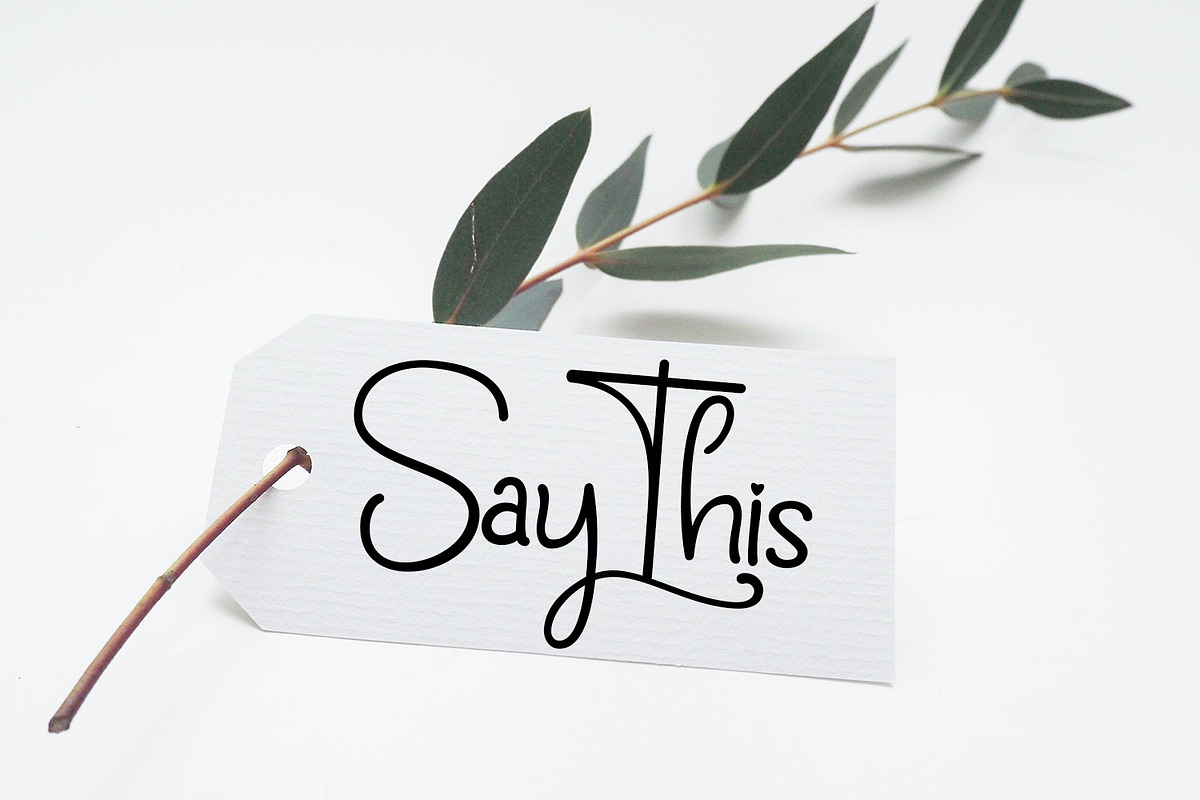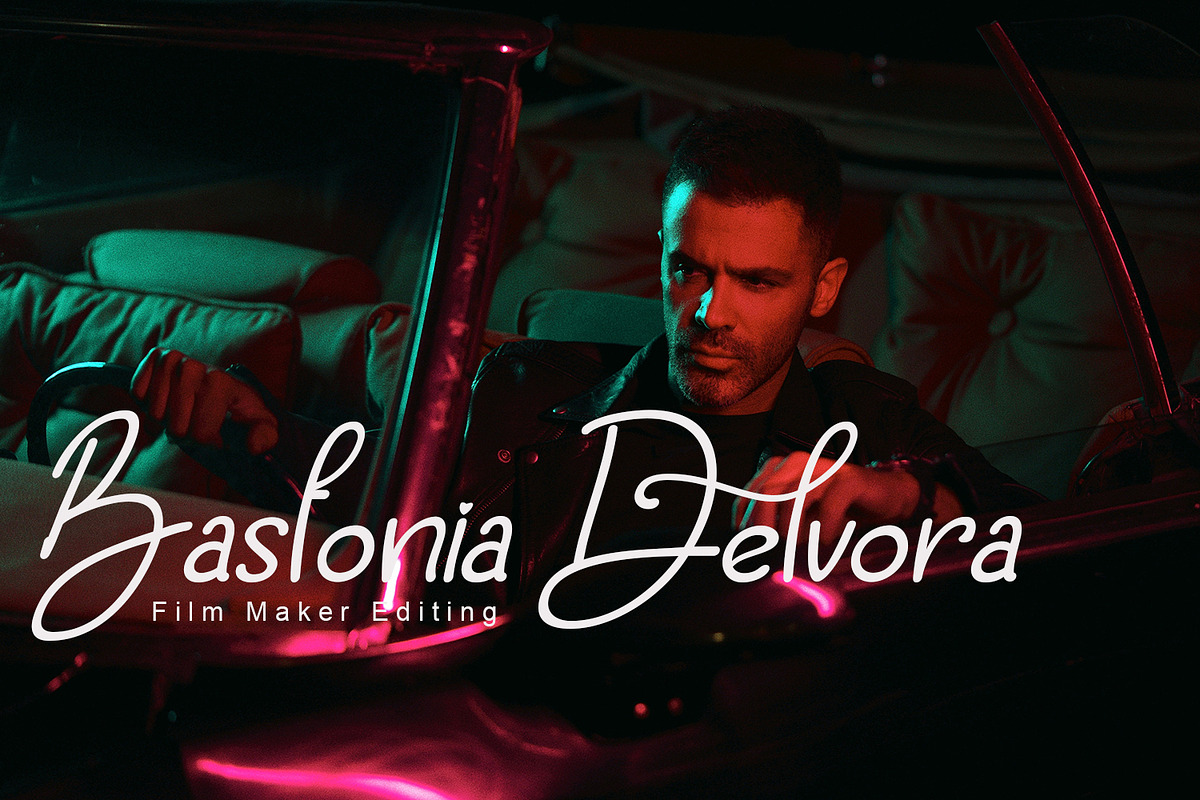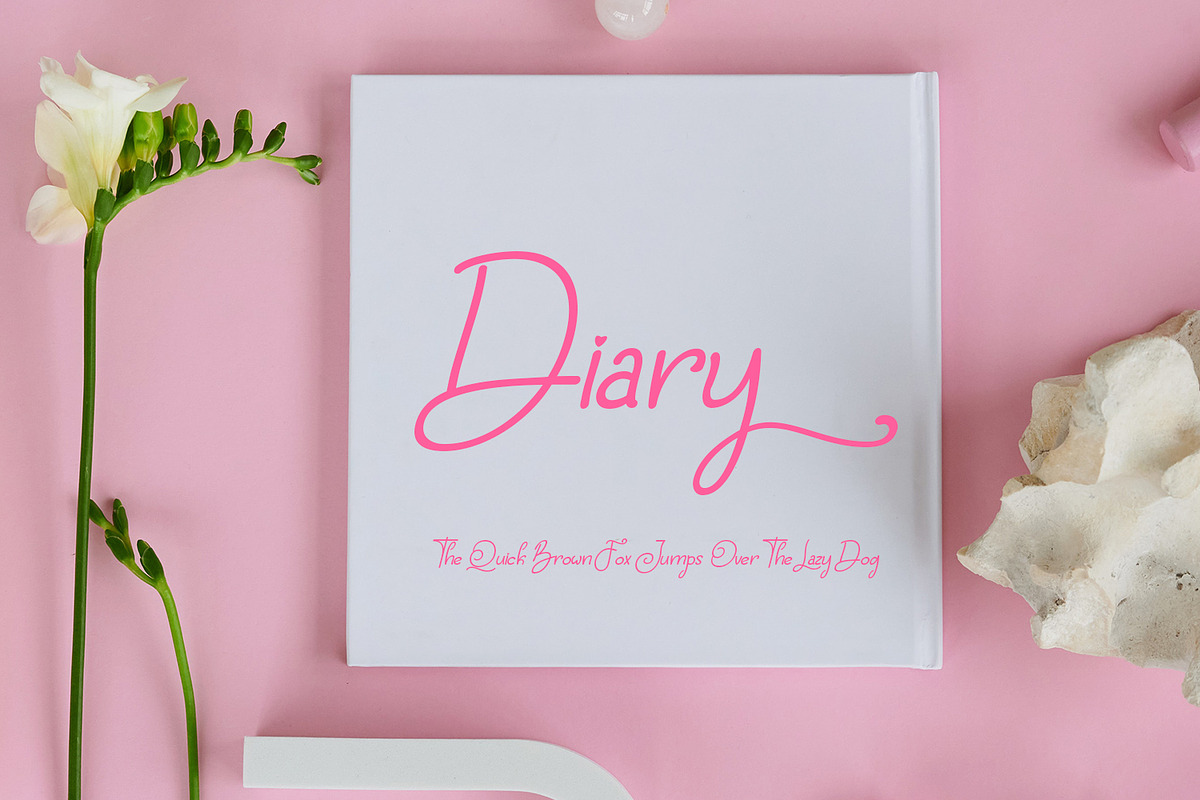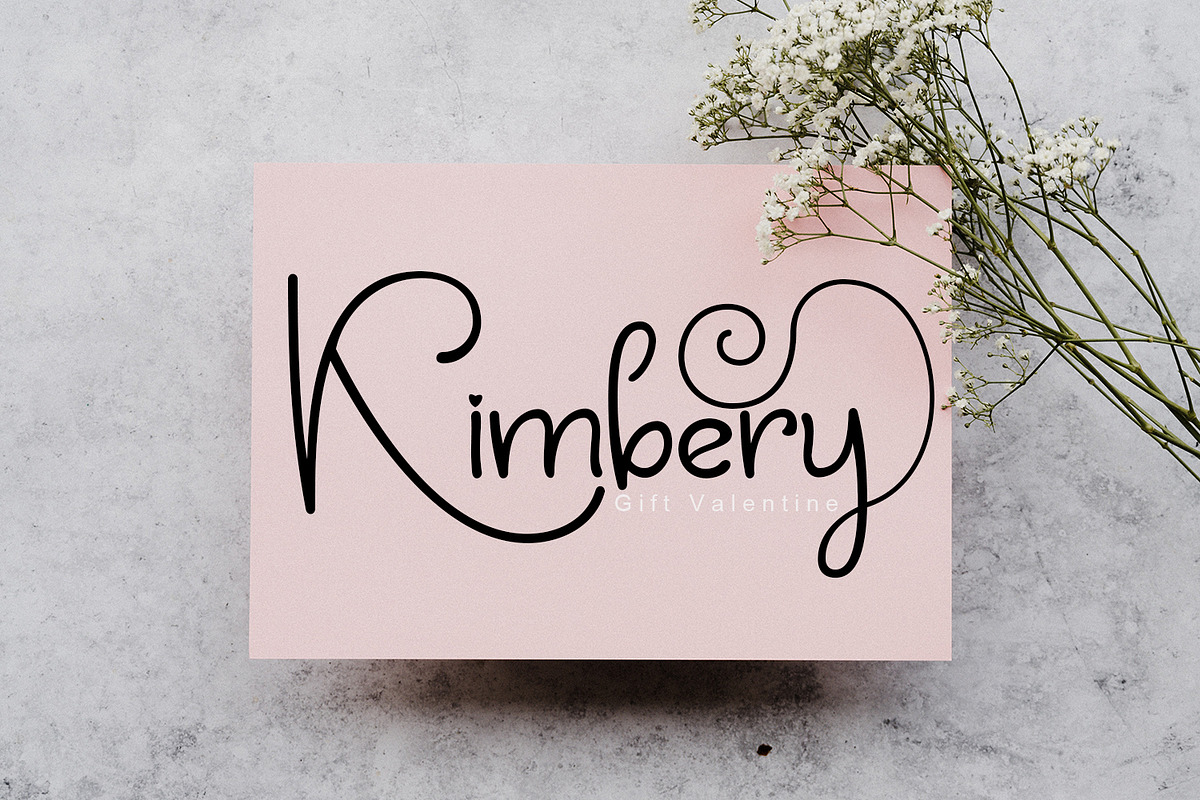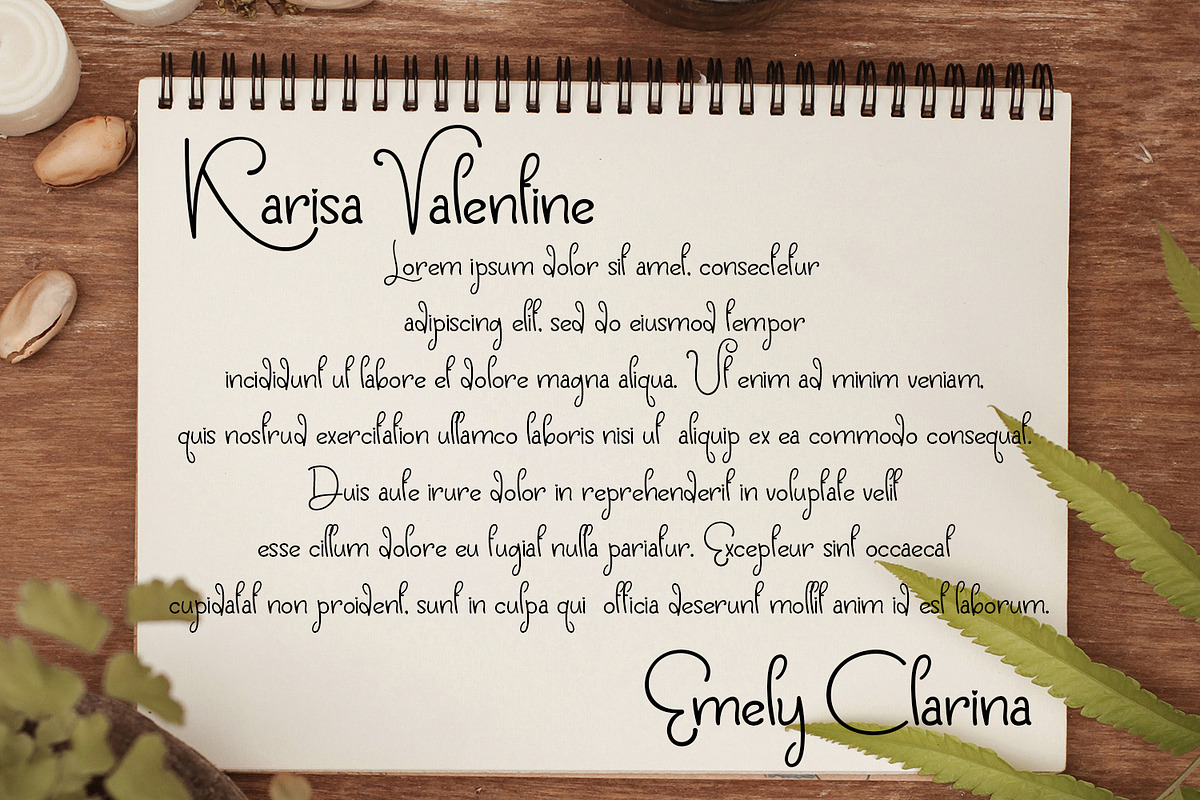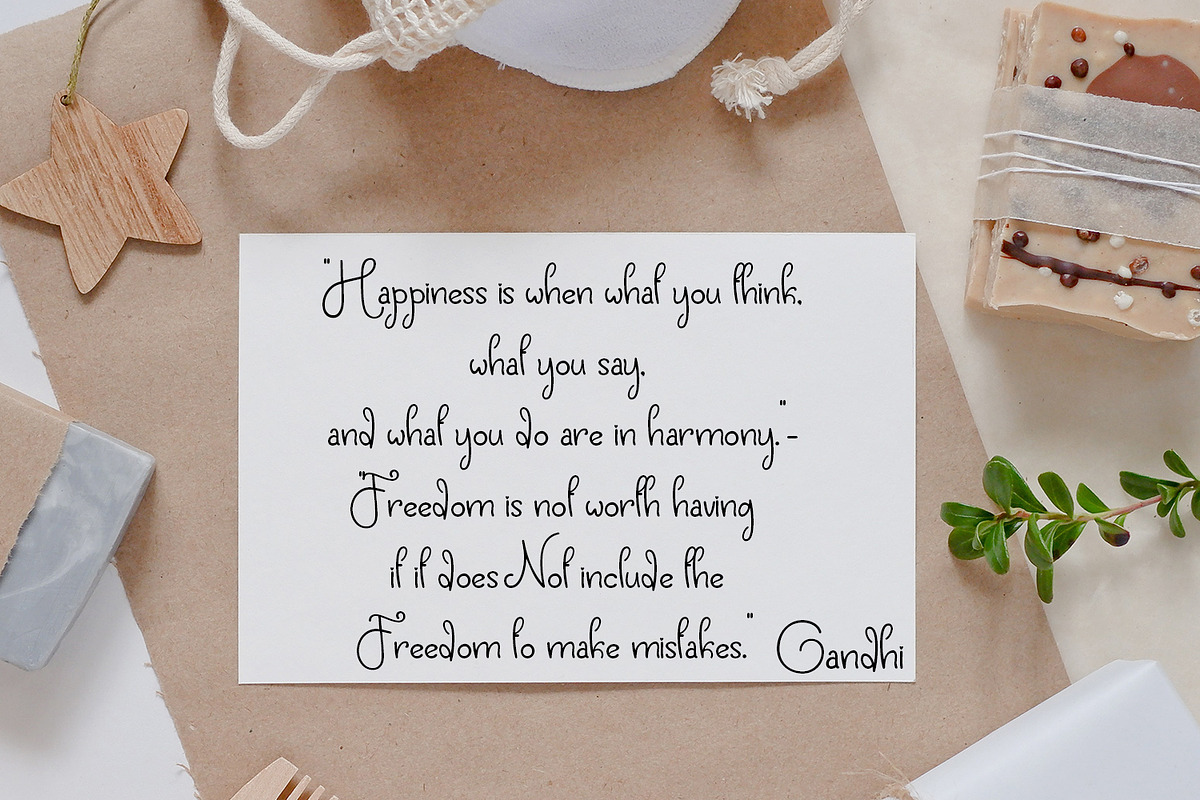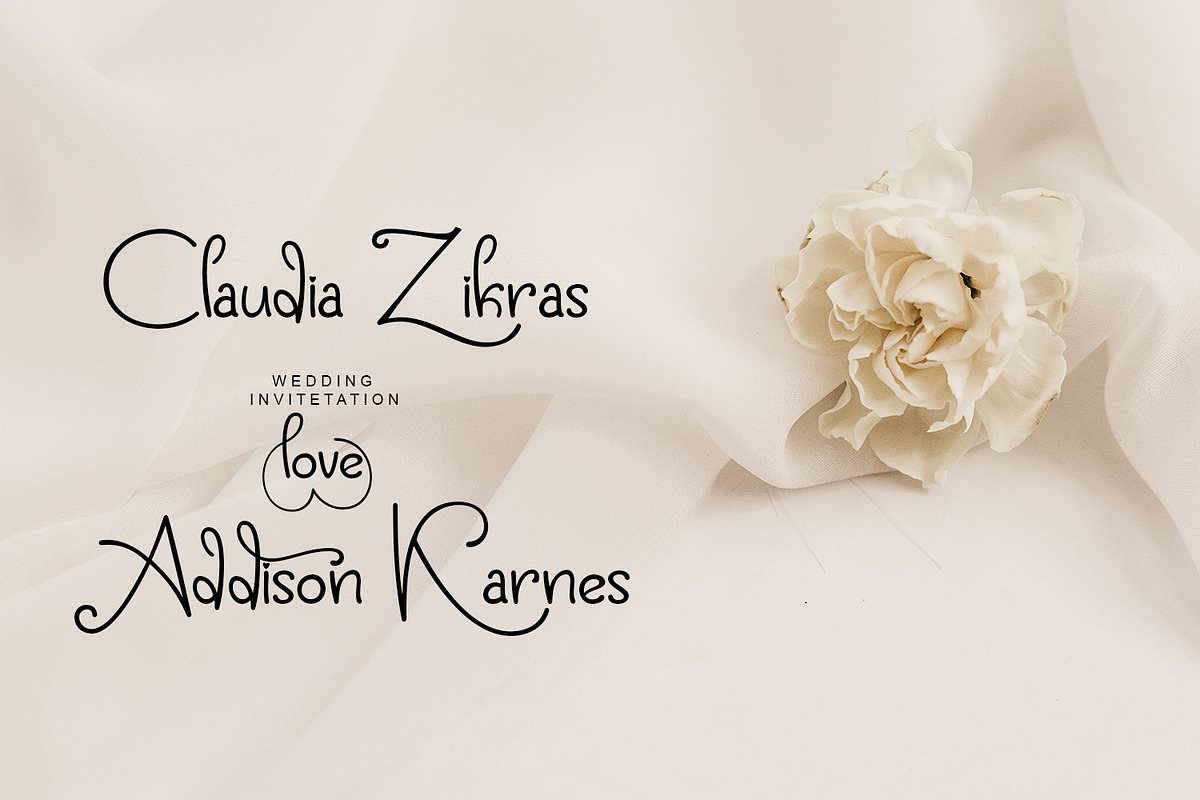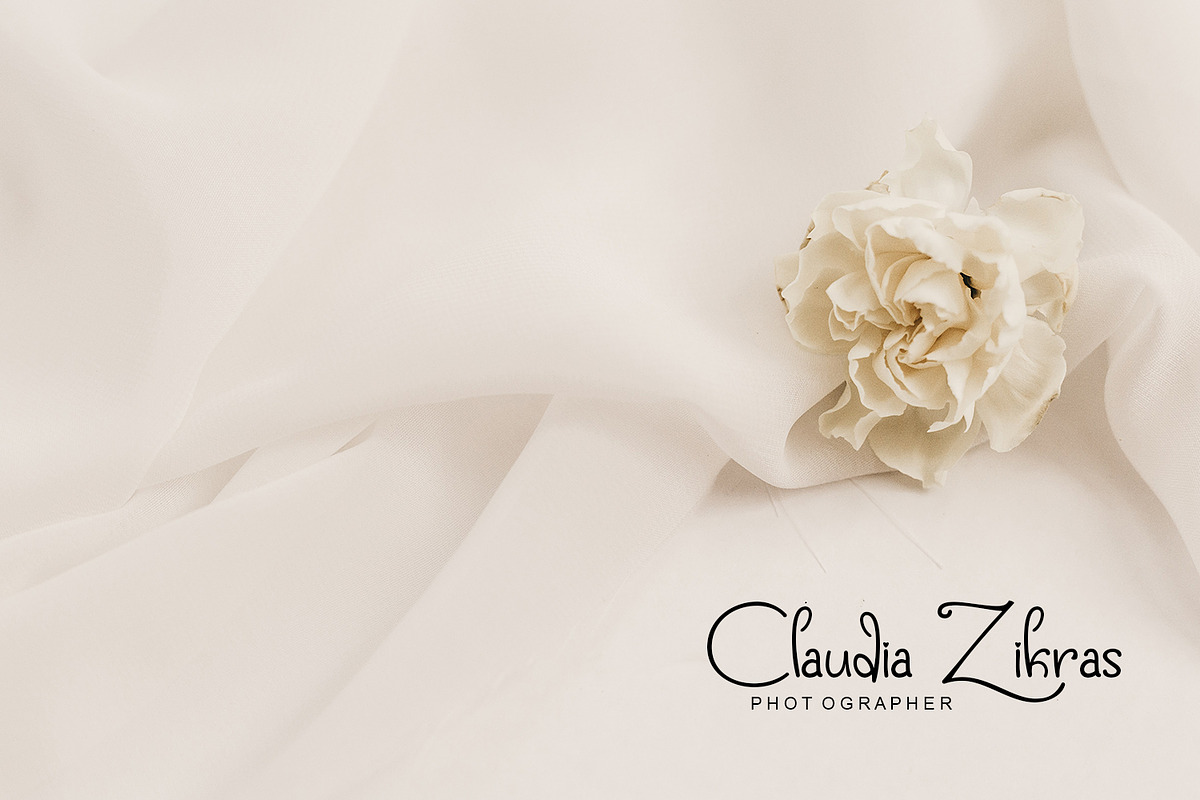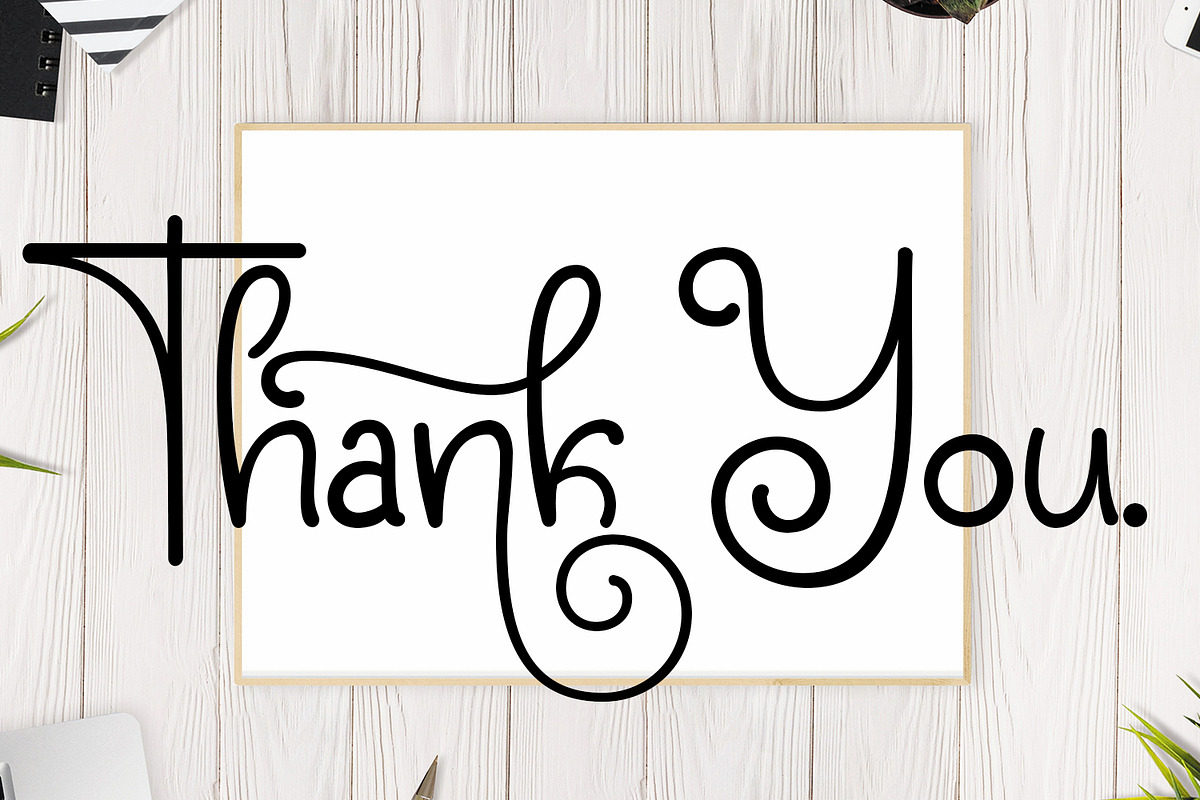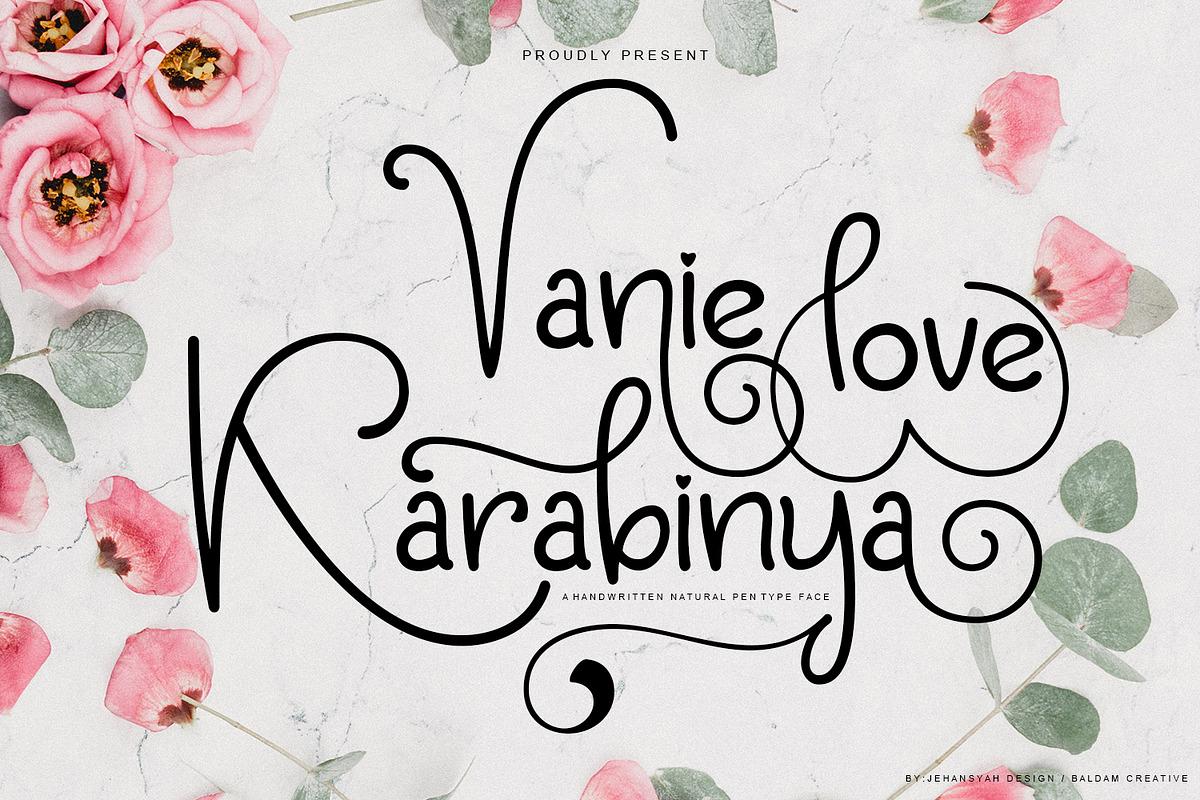
Vanie Karabinya Love
Vanie Karabinya Love this is a font with a simple yet natural appearance and looks very comfortable, this handmade font is perfect for you to make, a cute and clear signature replacement, very suitable for banners, names, social media, print media, and much more, there are several alternates that you can use, and are supported with PUA encoding / you can open them via the character map, and there you will find them all,